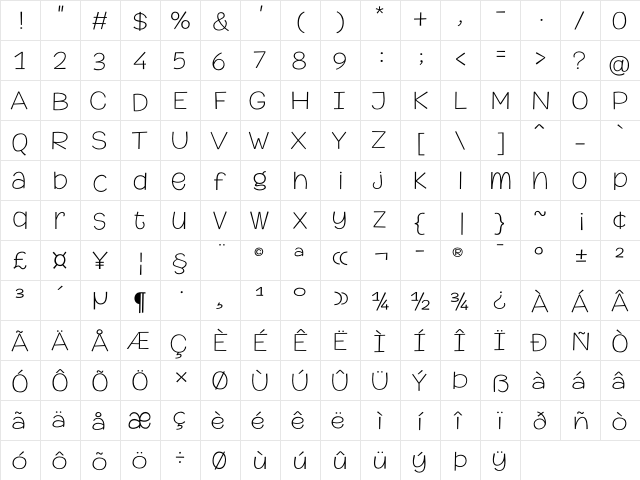
Mythical Garden Thin
Design Context for Mythical Garden Typeface
Mythical Garden offers clean, dependable letterforms without strong stylistic allegiance, making it a practical choice for designers who need flexibility. Its slender proportions lend an understated elegance to any composition.
Pro Tip: Use Mythical Garden in both headline and body roles to test its range before committing to a single application.